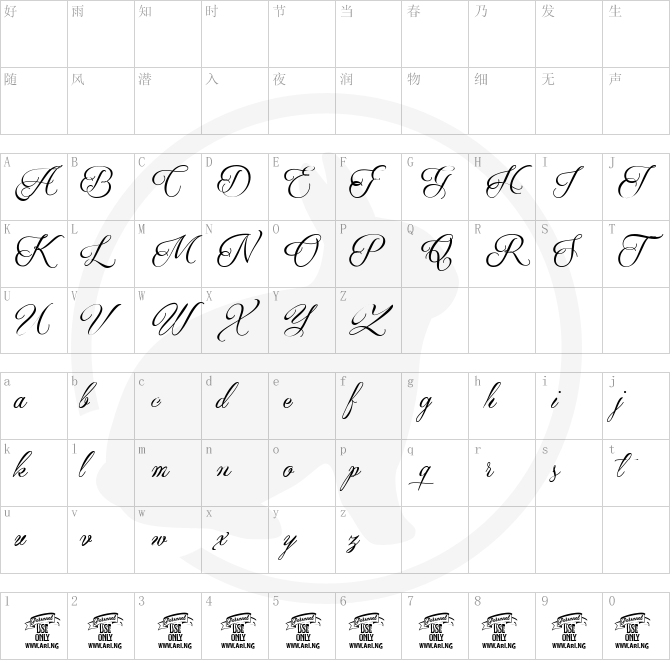
- Font Name:Qaskin Black Personal Use
Qaskin-Black-Personal-Use.ttf is a very beautiful artistic font, Qaskin-Black-Personal-Use.ttf is widely used in the design and printing of various books and pictures,Qaskin-Black-Personal-Use.ttf has a strong visual impact,Qaskin-Black-Personal-Use.ttf is a commonly used font in newspapers, magazines and books, and is used in posters, e-commerce Poster design, store design, logo design, font design and other fields.Qaskin-Black-Personal-Use.